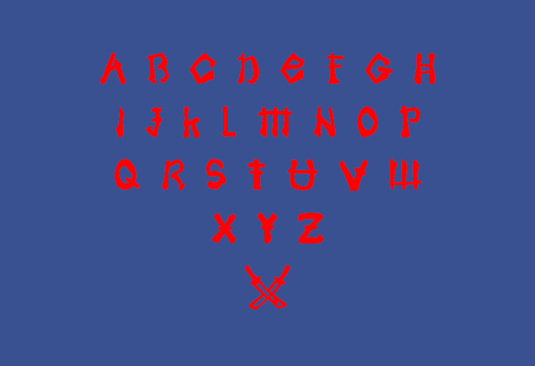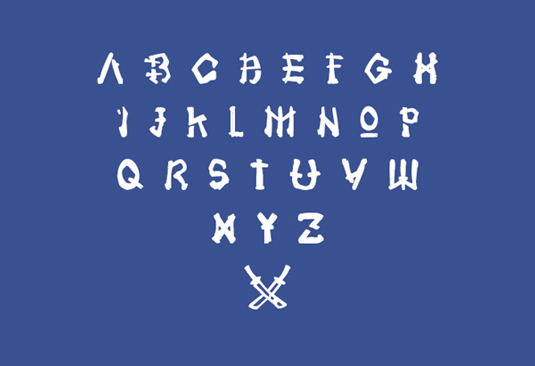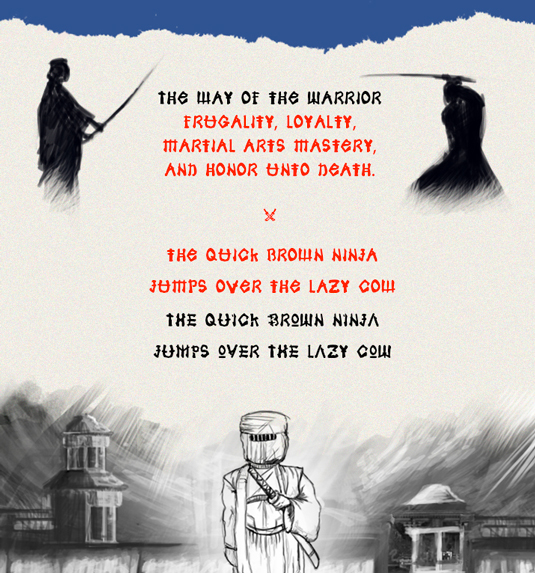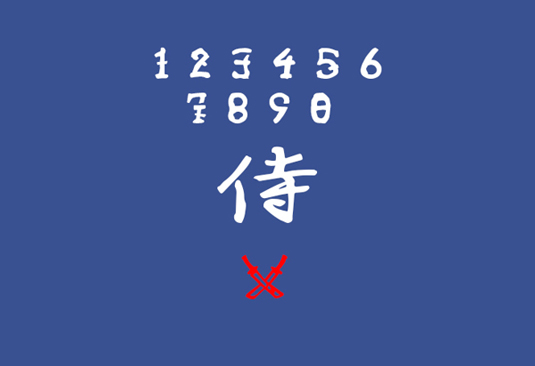
Font of the day: Samoerai
Samoerai by Jos Schoot Uiterkamp
Today's font of choice is Samoerai by 18-year-old graphic design student Jos Schoot Uiterkamp.
"Samoerai is a unique, uppercase display font inspired by Japanese and Chinese culture," he says. "It started out as a litle experiment with the use of handwritten characters in Photoshop, but quickly escalated in a complete, special font. It contains a double alphabet with alternative characters, also including some special glyphs."